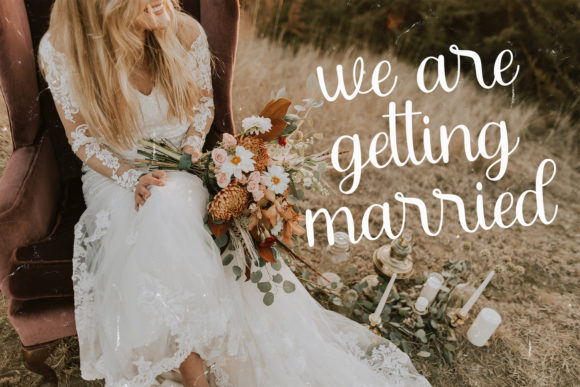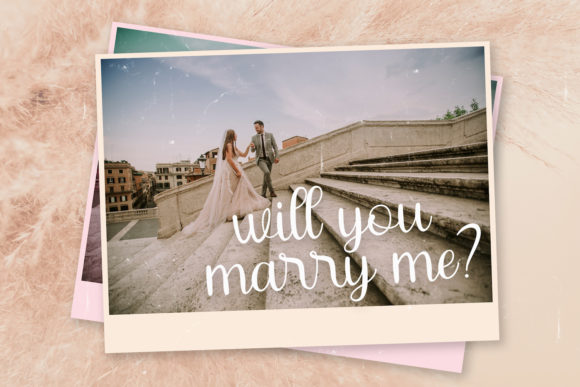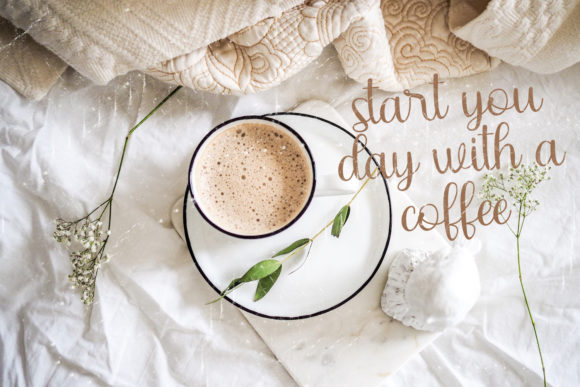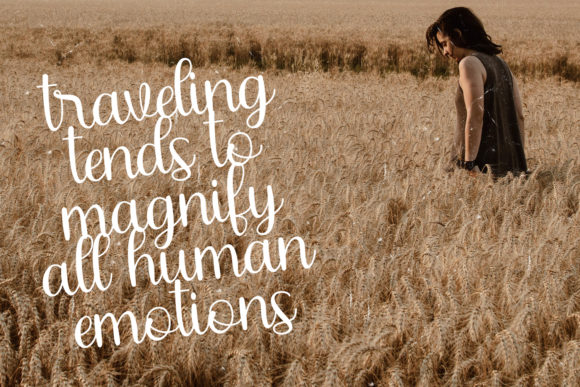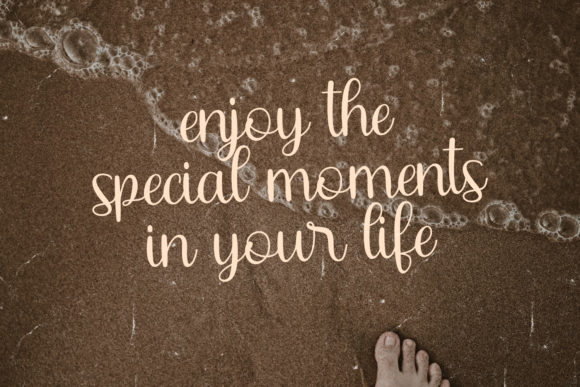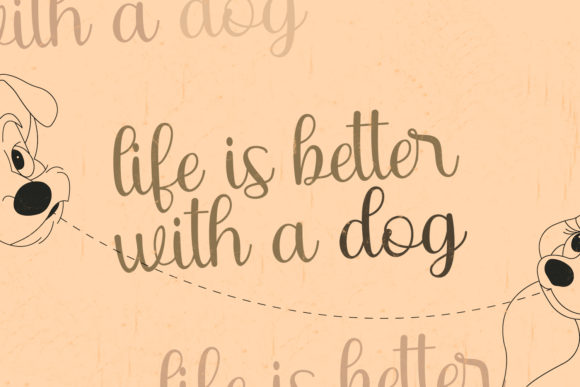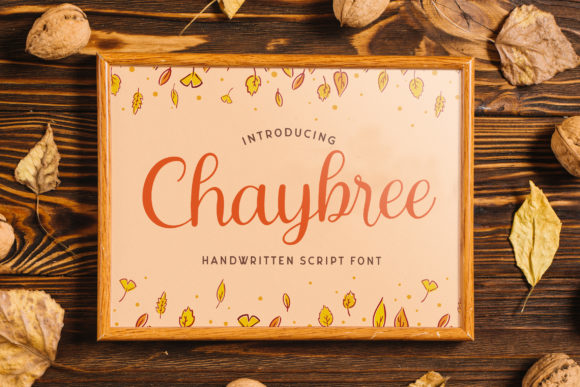
Introducing Chaybree Font: Elevate Your Designs with Elegance
Are you on the hunt for a font that exudes elegance and sophistication? Look no further than Chaybree, a stunning flowing handwritten font that is sure to capture your heart. With its incredibly distinct and timeless style, Chaybree is the perfect addition to your favorite projects. In this article, we’ll dive into the world of Chaybree font, exploring its unique features, and how you can harness its beauty to create spectacular designs.
The Charm of Chaybree Font
Chaybree font is a masterpiece of typography, boasting an elegant touch that sets it apart from other fonts. Its flowing script style is reminiscent of traditional calligraphy, yet with a modern twist that makes it perfect for contemporary designs. The font’s unique characteristics include:
- Flowing script style: Chaybree’s script style is fluid and connected, creating a sense of movement and harmony in your designs.
- Elegant touch: The font’s elegant touch adds a level of sophistication, making it ideal for high-end projects, such as luxury branding, and editorial design.
- Distinct and timeless style: Chaybree’s style is both distinctive and timeless, ensuring that your designs will stand the test of time and remain stylish for years to come.
Chaybree font is a versatile tool that can be used by designers and crafters across various industries. Whether you’re working on:
- Branding and logos: Chaybree’s elegant style makes it perfect for creating sophisticated brand identities and logos.
- Editorial design: The font’s flowing script style is ideal for editorial design, including magazines, newspapers, and books.
- Packaging and labels: Chaybree’s unique style adds a touch of elegance to packaging and labels, making your products stand out on store shelves.
- Digital and social media: The font’s modern twist makes it suitable for digital and social media designs, including website headers, social media graphics, and more.
Tips for Using Chaybree Font
To get the most out of Chaybree font, here are some expert tips:
- Pair with contrasting fonts: Combine Chaybree with contrasting fonts to create visual interest and hierarchy in your designs.
- Experiment with colors: Chaybree font looks stunning in a range of colors, from metallic and pastel shades to bold and bright hues.
- Pay attention to spacing: Make sure to adjust the spacing between letters and words to ensure optimal readability and flow.
In conclusion, Chaybree font is a game-changer for designers and crafters looking to add a touch of elegance and sophistication to their projects. With its flowing script style, elegant touch, and distinct and timeless style, Chaybree is the perfect font for creating spectacular designs. Whether you’re working on branding, editorial design, packaging, or digital media, Chaybree font is sure to elevate your designs to the next level.